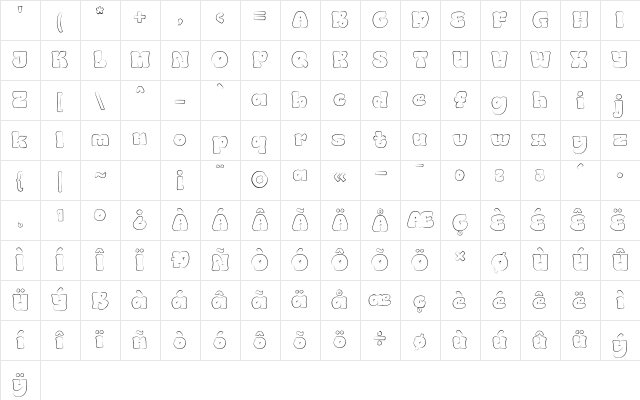
Complete BRONG GEDUNYtrial Regular glyph index. Displaying only characters natively supported by BRONG GEDUNYtrial Regular font.
BRONG GEDUNYtrial is a composed and adaptable typeface that performs quietly and consistently across a wide range of design contexts.